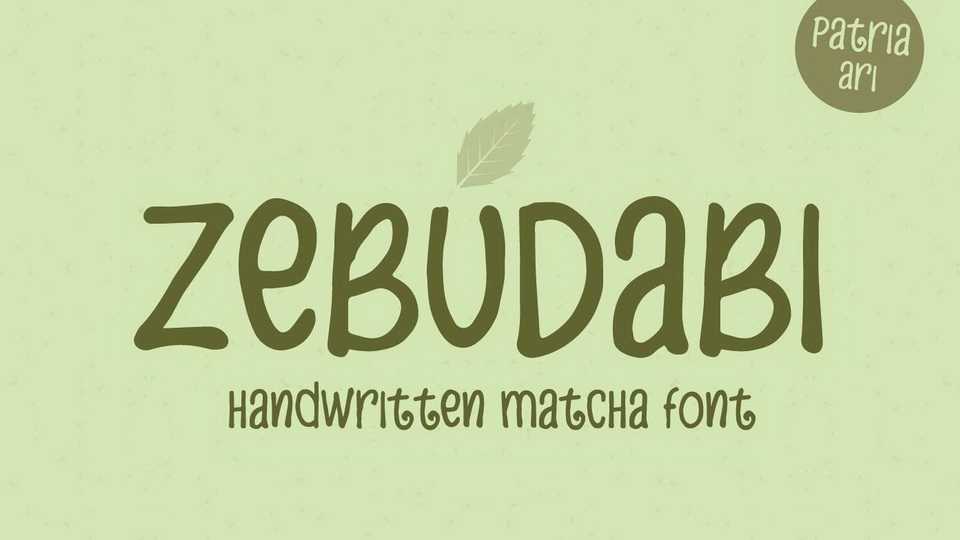
Download Zebudabi font, a fun handwritten matcha typeface with unique glyph shapes. Zebudabi has lowercase and uppercase that can be played off easily, so you can get a unique combination to use for your project to make design more beautiful.